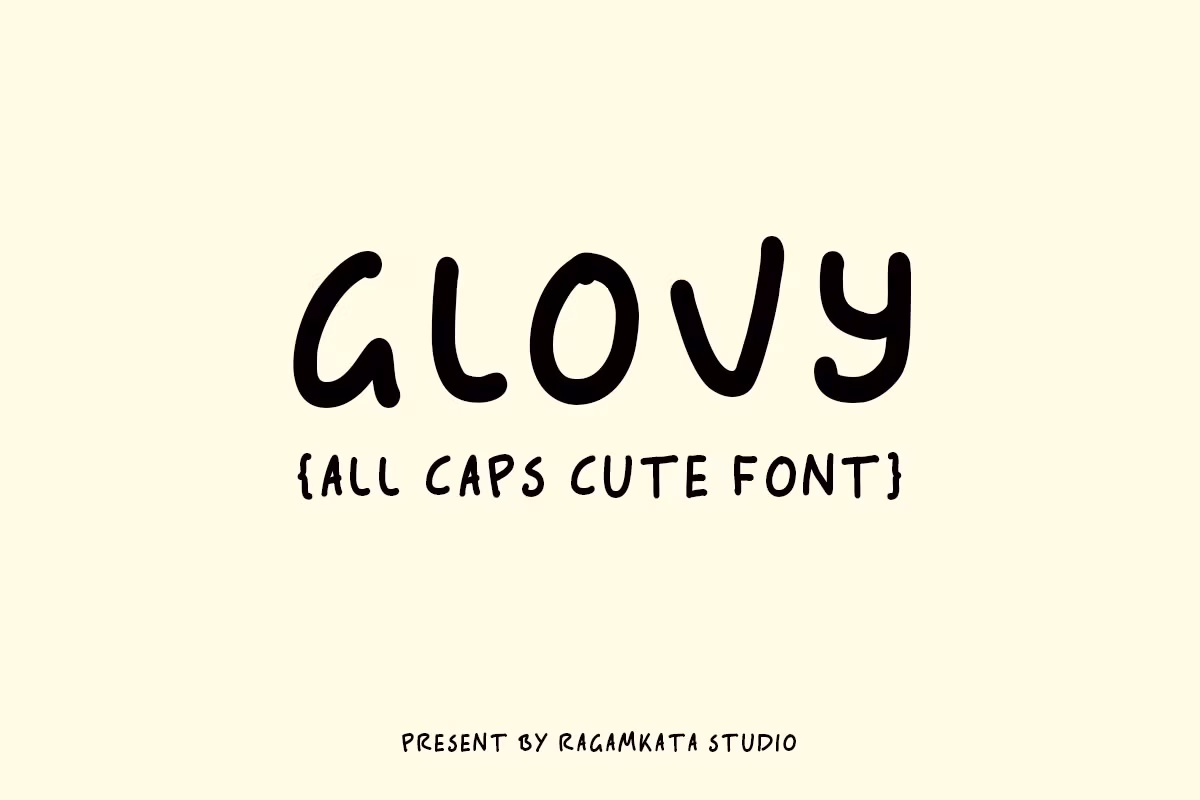
Glovy - All Caps Cute Font Free Download
Glovy - All Caps Cute Font Free Download is a fun and playful all-caps font designed to bring a lighthearted and cheerful vibe to your designs. Featuring bold, rounded letterforms and a friendly aesthetic, this font is perfect for branding, social media posts, posters, packaging, and any project that requires a cute and approachable feel.
Its versatility makes it ideal for children’s products, playful logos, and fun greeting cards. Whether you're working on a personal blog, creating a fun event invitation, or designing for a kid-friendly brand, Glovy adds a joyful and whimsical touch to your work.